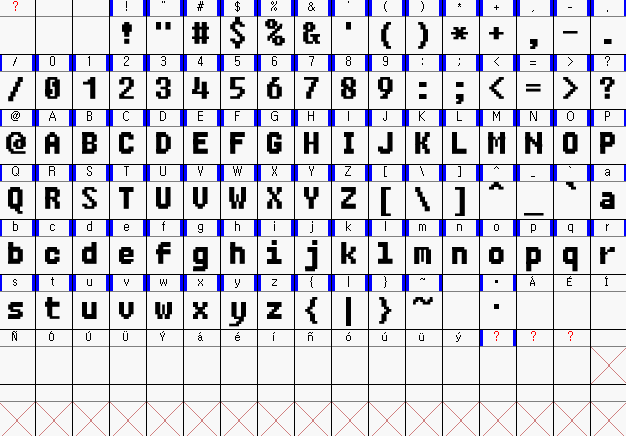
pixFueler-A
BP Gas Staion Fuel Receipt Printed Sample:
Casey’s Gas Staion Fuel Receipt Printed Sample:
Circle K Gas Staion Fuel Receipt Printed Sample:
Costco Gas Staion Fuel Receipt Printed Sample:
ESSO Gas Staion Fuel Receipt Printed Sample:
Hy-Vee Gas Staion Fuel Receipt Printed Sample:
Murphy Gas Staion Fuel Receipt Printed Sample:
Petro-Canada Gas Staion Fuel Receipt Printed Sample:
QuikTrip Gas Staion Fuel Receipt Printed Sample:
Shell Gas Staion Fuel Receipt Printed Sample:
Sunoco Gas Staion Fuel Receipt Printed Sample:
Wawa Gas Staion Fuel Receipt Printed Sample:
All Characters of pixFueler-A:
pixFueler-A Font Opened by Default Windows Font Viewer:
pixFueler-A Font Printed Demo by Epson TM-T81 Printer (at 8.5 pt font size):